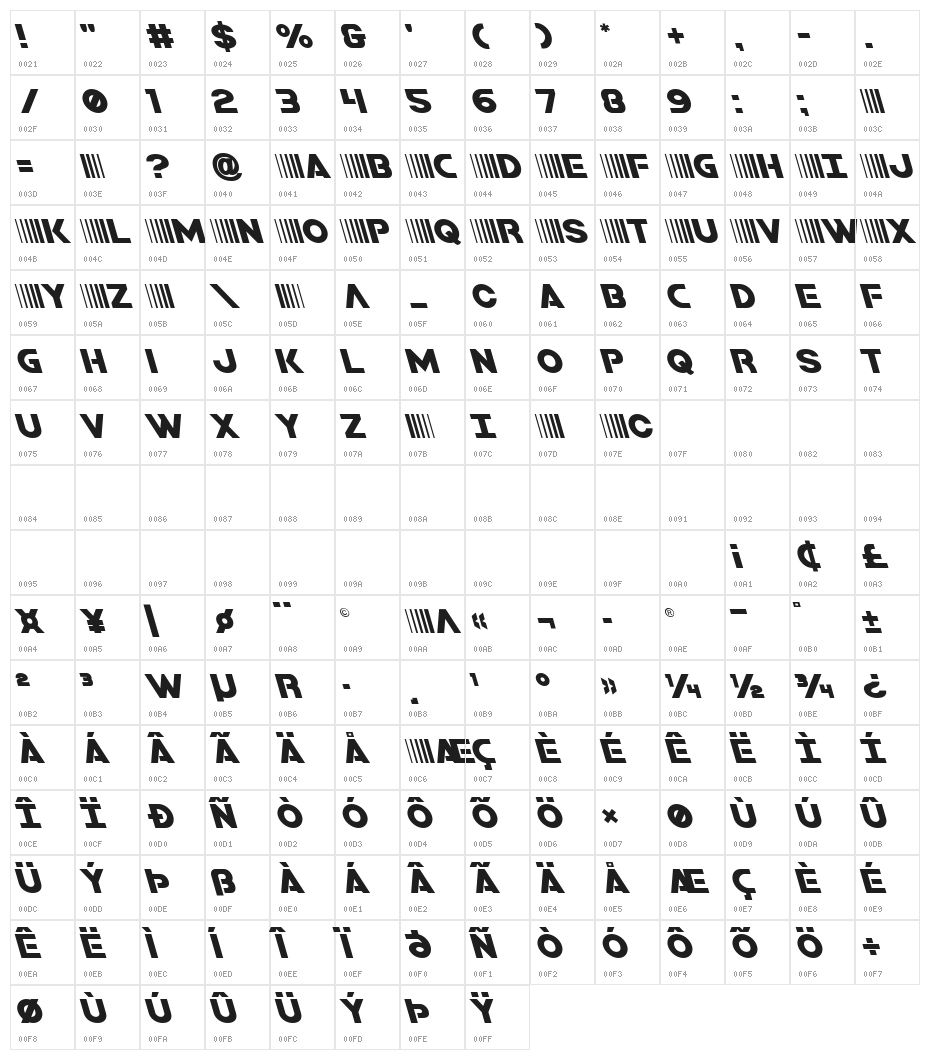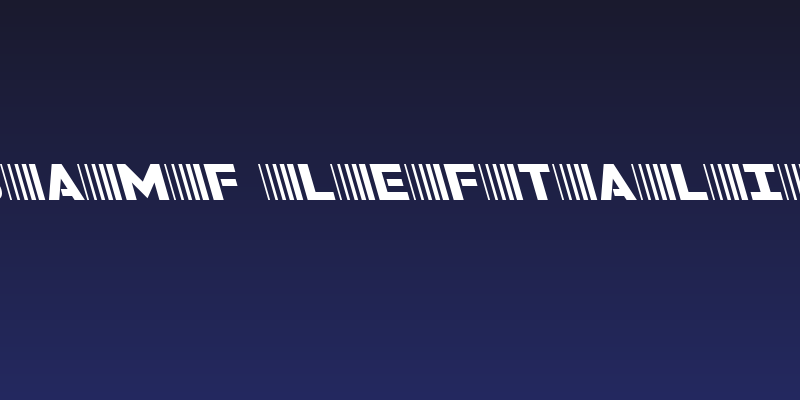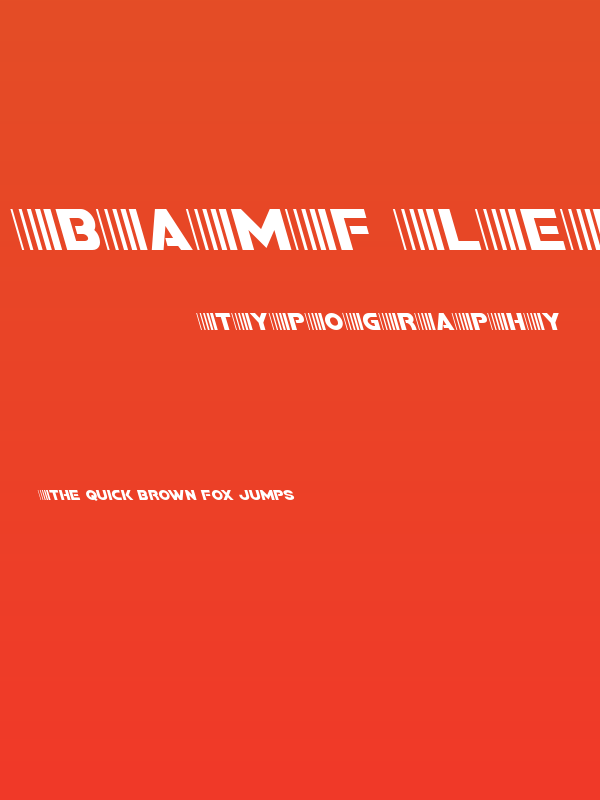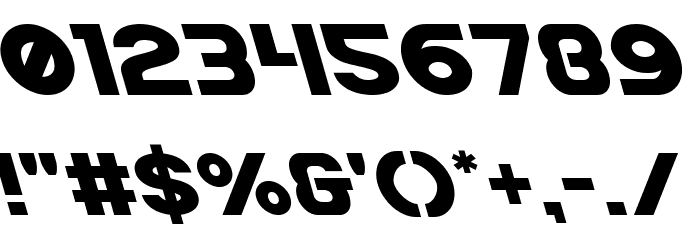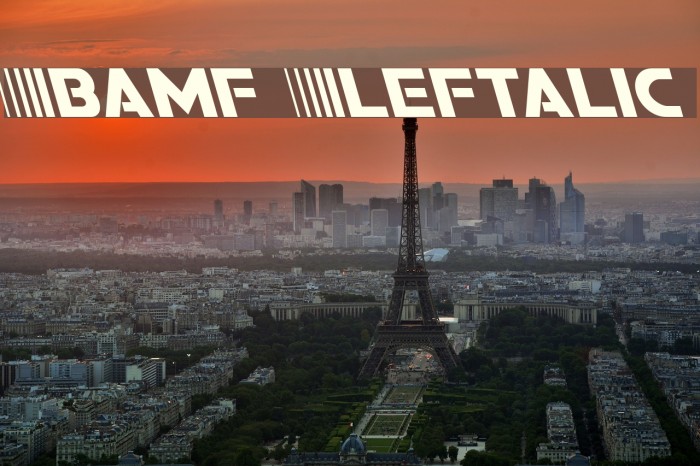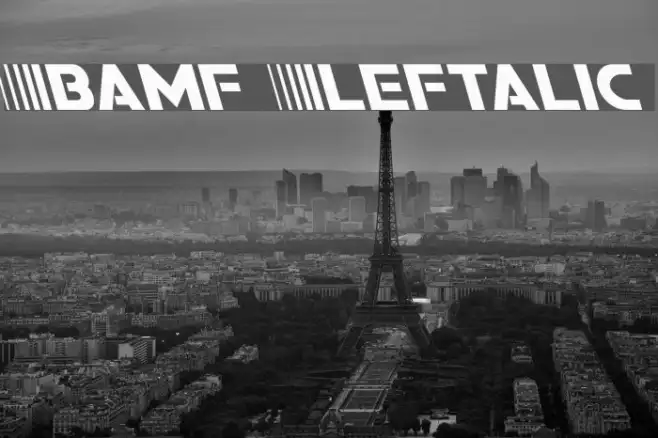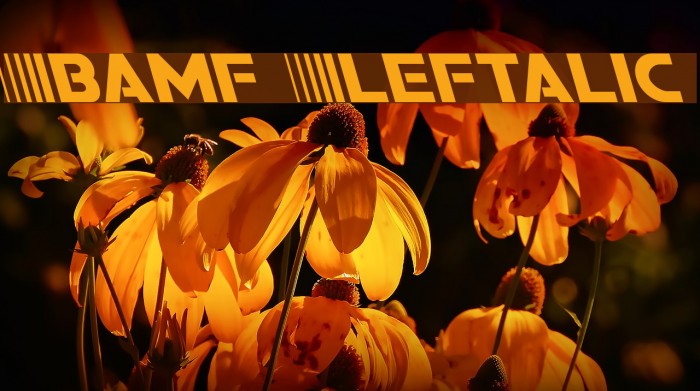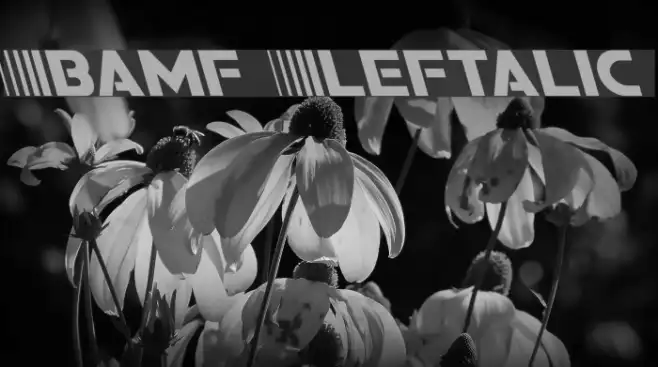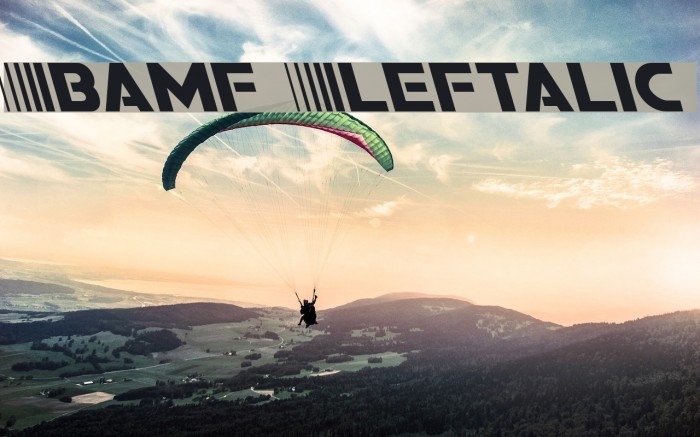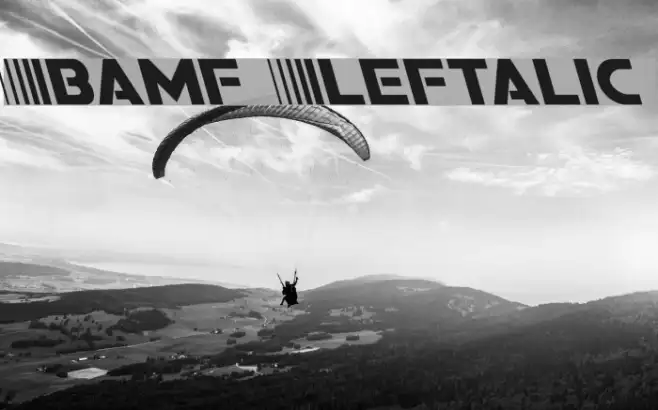
Bamf Leftalic Font
Bamf Leftalic Description
This font features a bold and dynamic style with a distinct slant to the left, giving it a sense of motion and energy. The uppercase letters are robust and impactful, with a consistent thickness that emphasizes strength and stability. The lowercase letters maintain the same boldness, ensuring readability while adding a touch of uniqueness with their angular design. The numerals are equally bold, designed to stand out and capture attention. Special characters are crafted with the same attention to detail, ensuring they integrate seamlessly with the rest of the font. The overall design is modern and eye-catching, making it suitable for projects that require a strong visual impact.